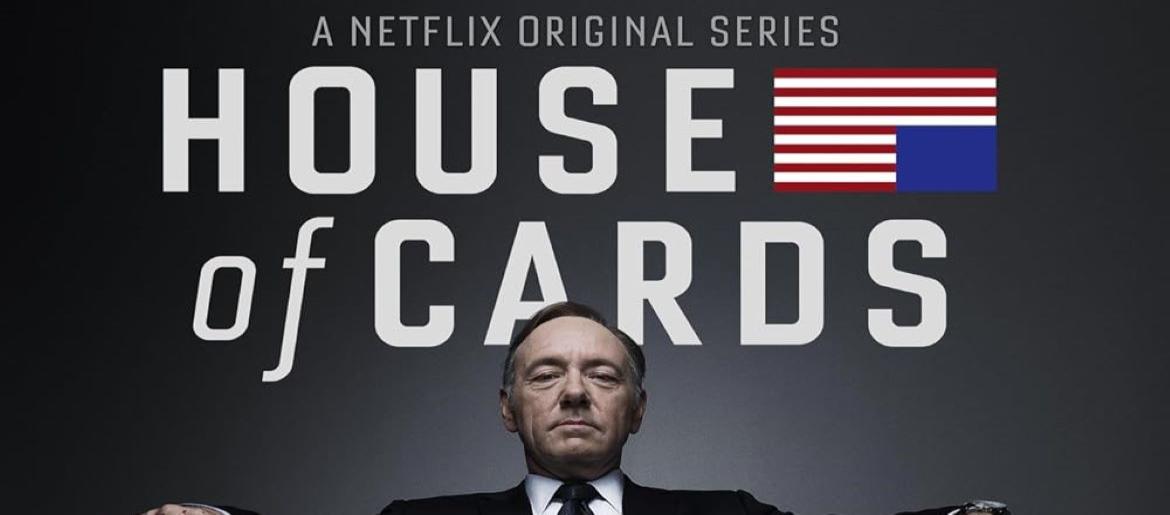
I absolutely love how the House of Cards Font captures the essence of political manipulation and corporate power in its very letterforms. There’s something incredibly compelling about how this typeface manages to feel both authoritative and subtly threatening at the same time.
What I find most fascinating about the House of Cards Font is its clean (original font: Bourgeois Bold Condensed for “HOUSE” and “CARDS” Book Condensed italic for “of)”, sans-serif design that mirrors the calculated precision of Frank Underwood’s political machinations. I appreciate how the typography avoids ornate decorations, instead relying on sharp, confident strokes that reflect the show’s no-nonsense approach to depicting Washington D.C.’s ruthless political landscape.
I really admire how the House of Cards series used this font to establish its sophisticated, high-stakes atmosphere from the very first episode. The typography works brilliantly with the show’s dark color palette and minimalist opening sequence, creating an immediate sense of gravitas that I find incredibly effective.
What I love most about this typographic choice is how it influenced political drama branding across television. I’ve noticed many designers now favor similar clean, authoritative fonts when creating content related to government, business, or power dynamics. The House of Cards Font proves that sometimes the most powerful design statements come from restraint rather than flashy embellishment.